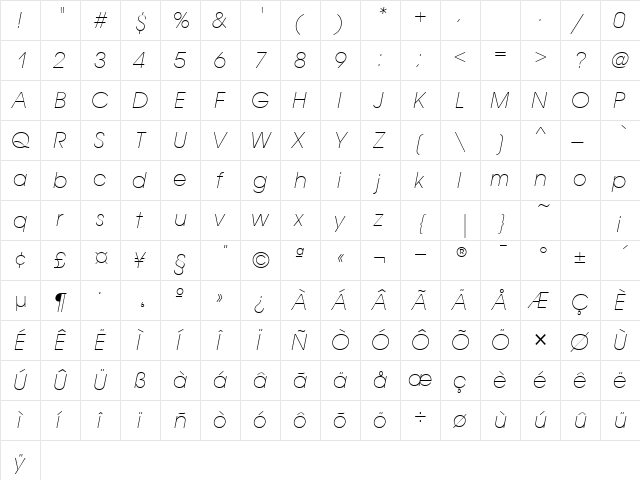
AvantGardeExtLitITCTT Oblique
| Foundry | International Typeface Corporation |
| Designer | Herb Lubalin/Tom Carnase |
Design Context for AvantGardeExtLitITCTT Typeface
AvantGardeExtLitITCTT takes a measured approach to typography — its balanced proportions and neutral character make it a reliable workhorse for both digital and print work. The dynamic lean of this cut emphasises speed and emphasis in any layout.